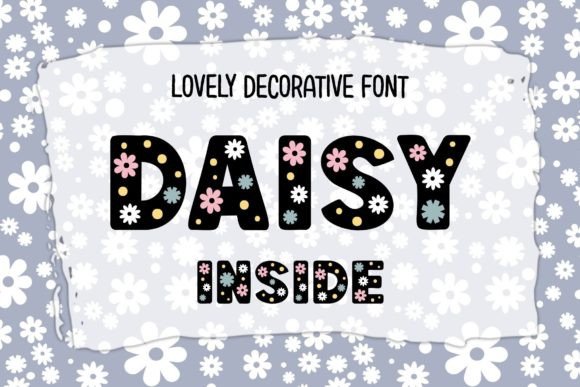
Welcome to the breathtaking world of Daisy Inside, the font that echoes the spirit of playfulness and charm. Its meticulous curves dance gracefully across your screen, casting a magical spell on every word you type. Prepare to be captivated as you embark on a typographic journey like no other.
Daisy Inside, a member of the decorative font family, is a feast for the eyes. With its joyful disposition, it transforms ordinary words into vibrant expressions of art. Whether you're crafting heartfelt thank-you letters, designing captivating social media posts, or adding a touch of delight to your crafty DIY projects, Daisy Inside is your perfect companion.
With Daisy Inside by your side, you'll discover a world of creative possibilities. Unleash your imagination and let your words bloom with an abundance of cheerfulness. This font is a symphony of flowing lines and exuberant letterforms, inviting you to create designs that radiate happiness and warmth.
Born from the creative minds of 18CC FONTs, Daisy Inside carries a legacy of excellence. Each character has been meticulously crafted to exude a sense of joy and playfulness, making it the ideal choice for adding a personal touch to your digital creations.